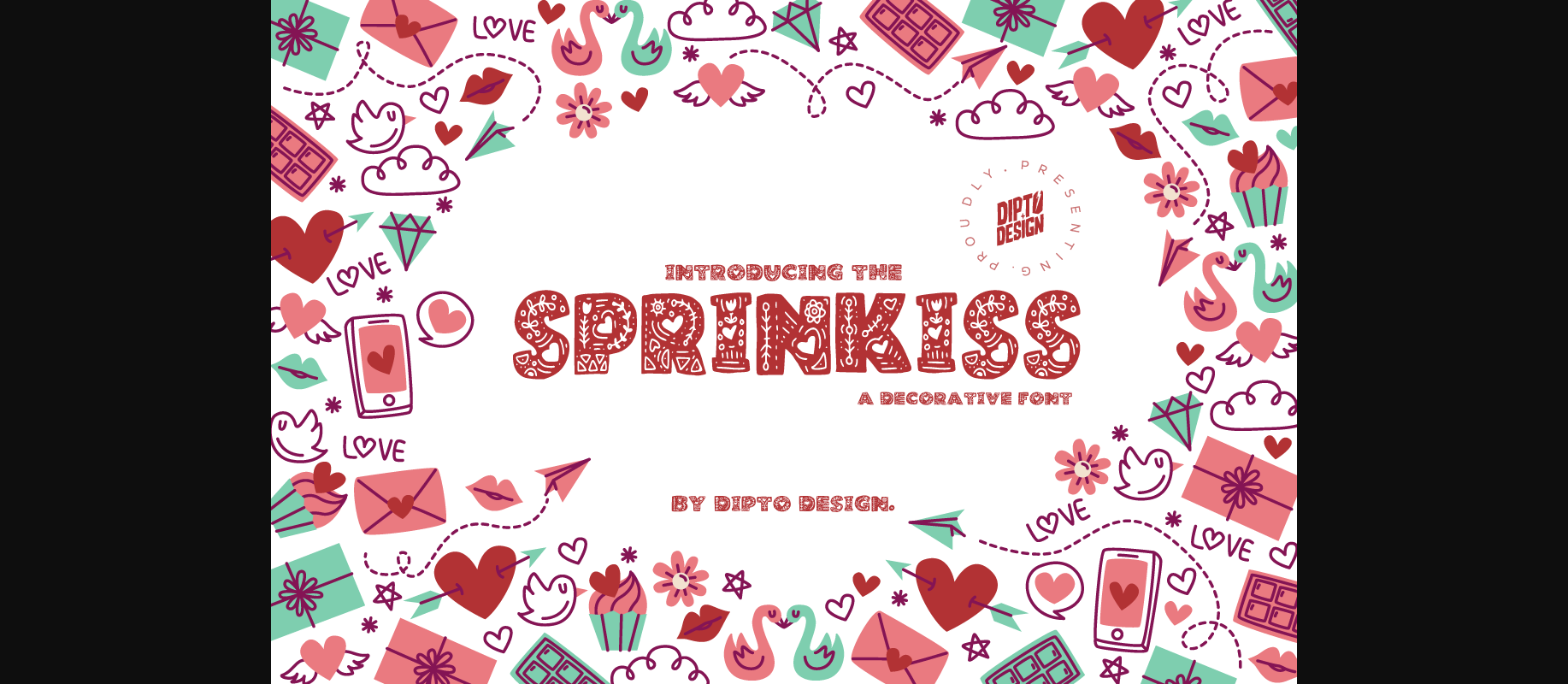
About Sprinkiss Font
Introducing “Sprinkiss,” a decorative font that enchants your designs with whimsy and charm. Each letter is a work of art, bringing a touch of magic to invitations, cards, and more. Versatile and engaging, Sprinkiss transforms your text into a memorable celebration.